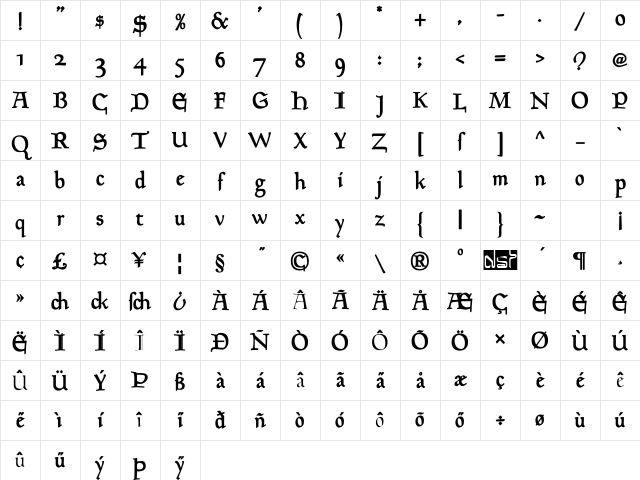
Goudy Mediaeval DemiBold Free Font
Goudy Mediaeval DemiBold
Design Context for Goudy Mediaeval
Goudy Mediaeval is a composed and adaptable typeface that performs quietly and consistently across a wide range of design contexts. Its bold stroke weight gives it real presence on the page.